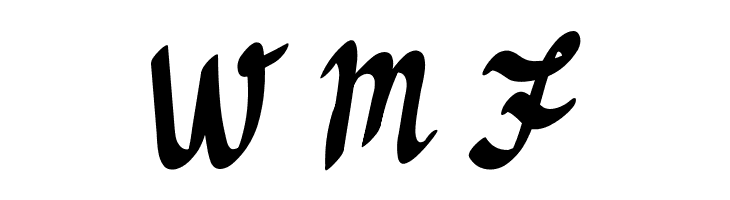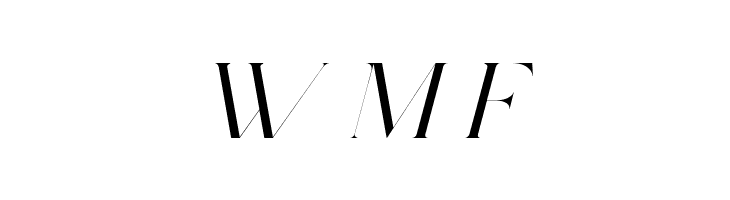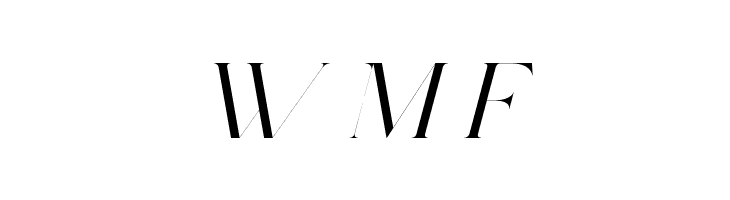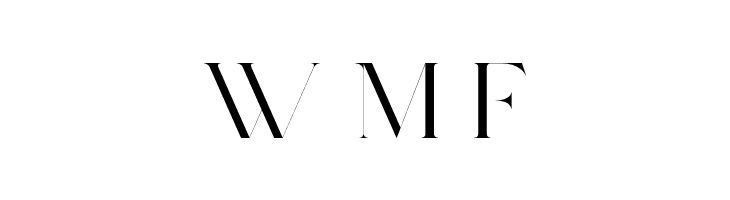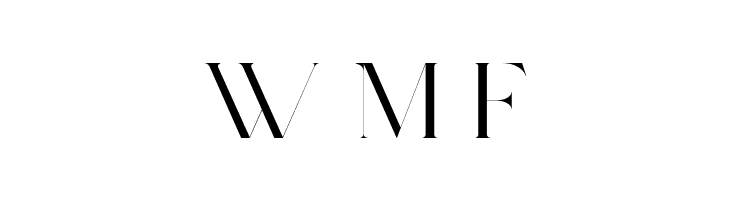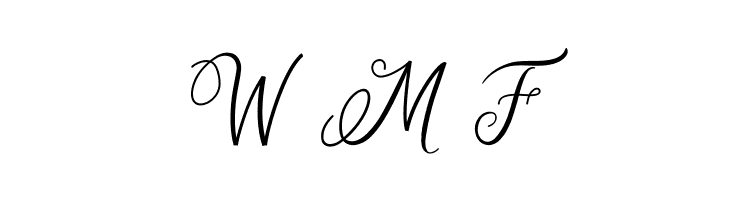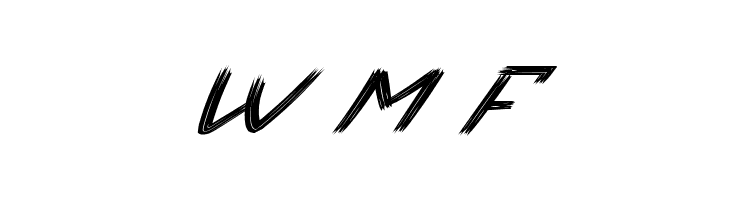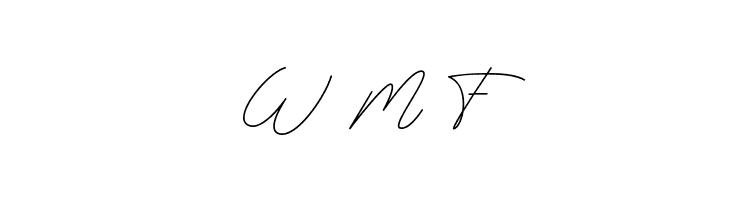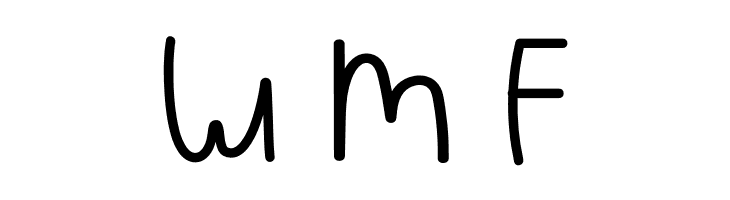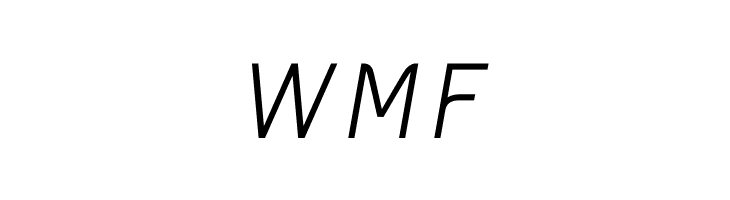
An elegant, flowing script font with smooth, connected strokes.
An elegant cursive font with smooth, flowing lines and a sophisticated style.
A bold, expressive script font with high contrast and ornate letterforms.
An elegant serif typeface with a refined italic style and graceful curves.
A modern serif font with high contrast and elegant serifs.
A flowing, cursive script font with elegant, interconnected strokes.
A stylish, cursive font with elegant, flowing strokes.
A cursive, elegant font with smooth, interconnected strokes.
A lively and flowing script font with elegant, cursive letterforms.
A dynamic and elegant script font with flowing, cursive letterforms.
A flowing, calligraphic script font with elegant, connected strokes.
A dynamic brush-style font with bold, sweeping strokes and a hand-painted look.
A bold, brush-style italic font with dynamic strokes and artistic flair.
A modern, rounded font with clean lines and balanced spacing.
A flowing, cursive script with elegant loops and swashes.
A handmade, artistic font with tall, narrow characters and a whimsical style.
A rugged, brush-textured font with an energetic, hand-drawn style.
An elegant italic font with high contrast and refined serifs.
A sophisticated, high-contrast serif font with elegant, modern styling.
A cursive, handwritten-style font with elegant, flowing strokes.
A playful, bubble-like font with a hand-drawn, whimsical style.
An elegant script font with fluid, continuous strokes and a sophisticated style.
A modern, italic font with a sleek and dynamic design.
A modern, italicized font with bold strokes and a sleek, condensed design.
A playful, handwritten font with tall, narrow letters and a whimsical style.
An elegant, high-contrast italic serif font with a dynamic and sophisticated style.
A high-contrast, elegant serif font with modern and classic elements.
An elegant, italicized serif font with high contrast and decorative serifs.
An elegant, high-contrast serif font with artistic flair.
A modern, light sans-serif font with clean lines and excellent readability.
A playful, handwritten font with flowing, interconnected letterforms.
A bold, brush-style font with dynamic, hand-painted strokes.
A bold, angular serif font with a modern twist.
A playful and elegant script font with flowing, interconnected letterforms.
An elegant cursive font with flowing, intricate letterforms.